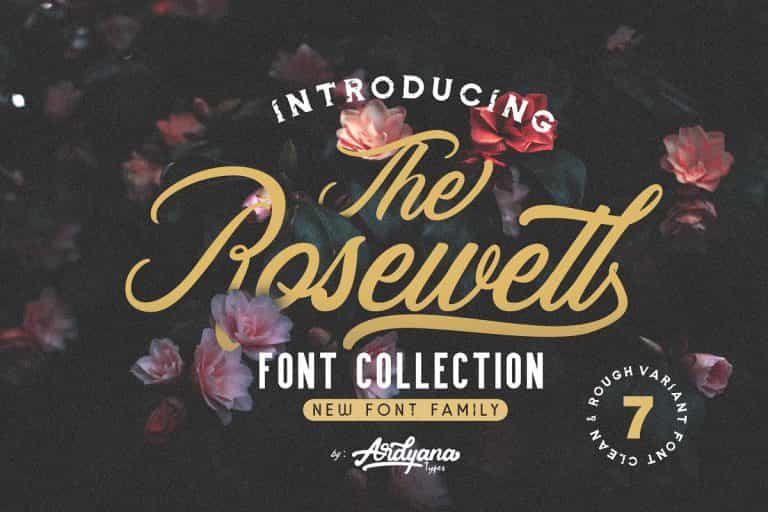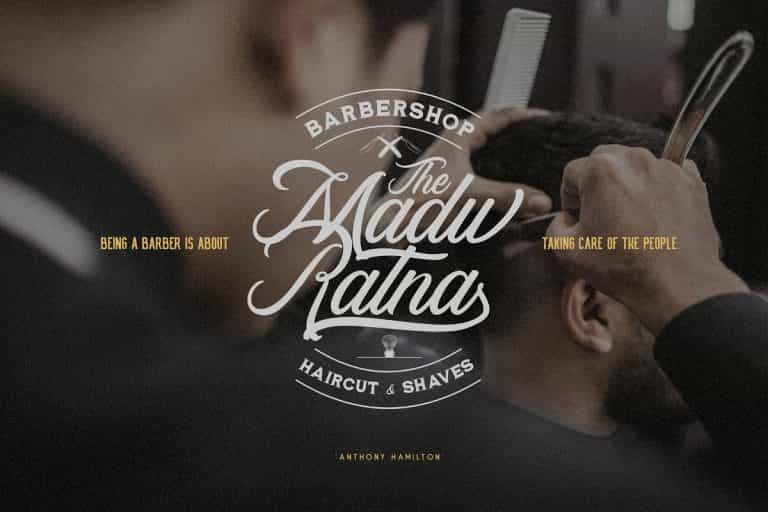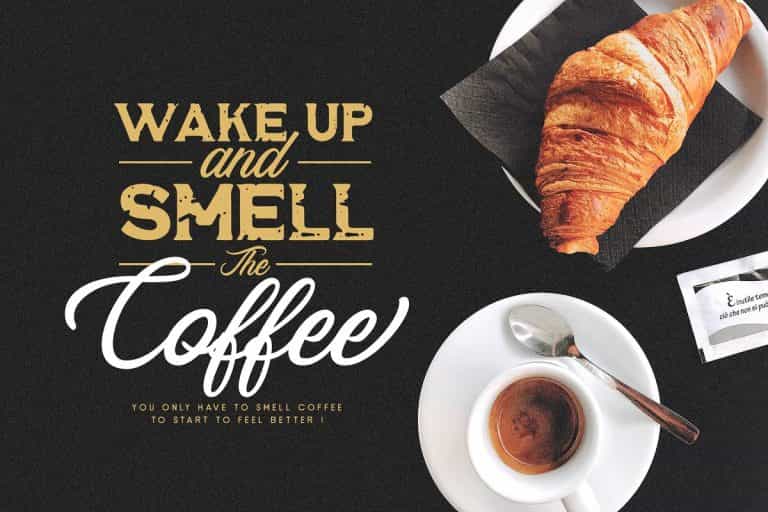
Introducing Rosewell Font! It was created and is distributed by the Ardyanatypes. Rosewell Script Font is presented with 7 different font variations that have different accents. Rosewell has a very fascinating font type and sans serif script to be combined so that it is more elegant and great. Rosewell carries two features in each sans serif letter, that is clean and rough to create a retro look. Rosewell itself was inspired by a variety of handwriting arts that are often ornamented in cafes and lounges as well as eccentric urban mural arts so that Rosewell has its own charm when used.